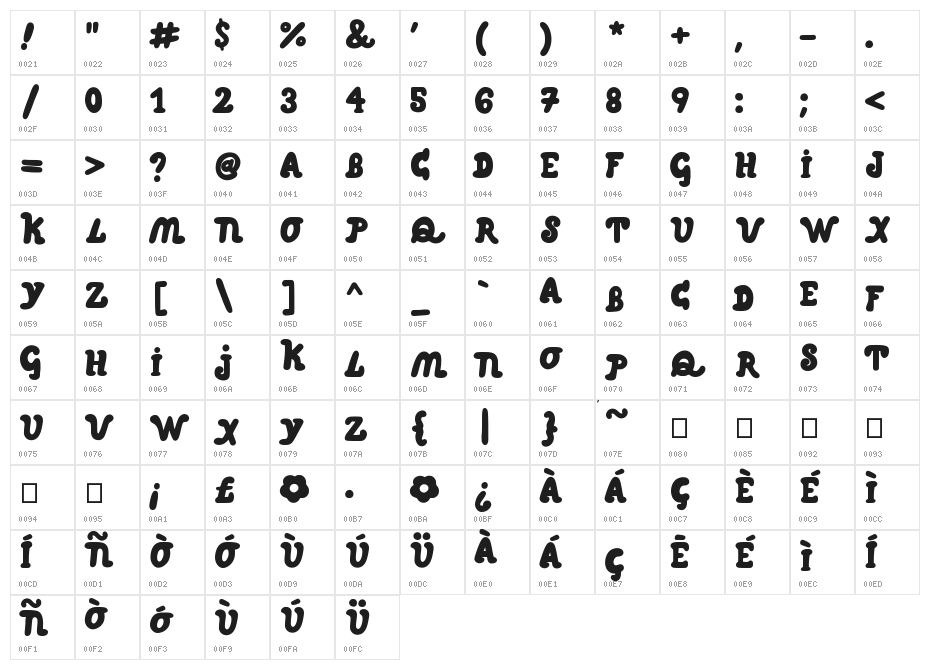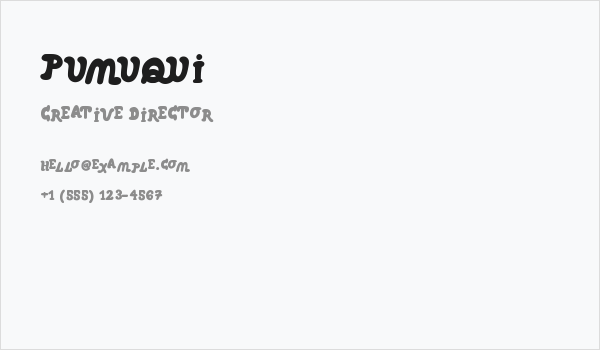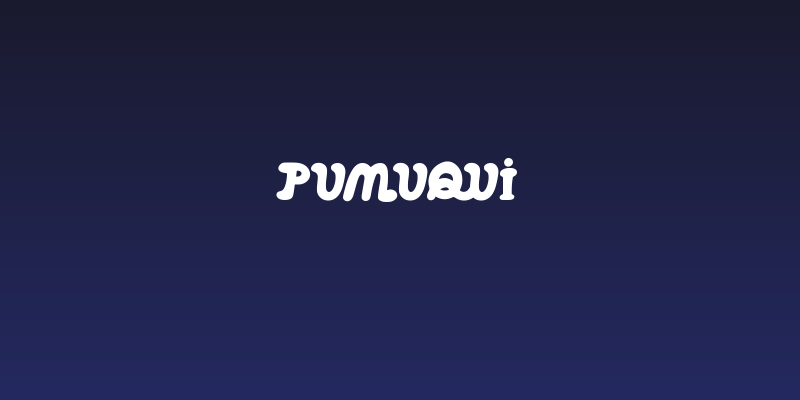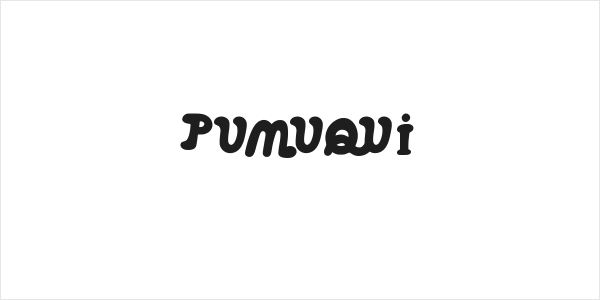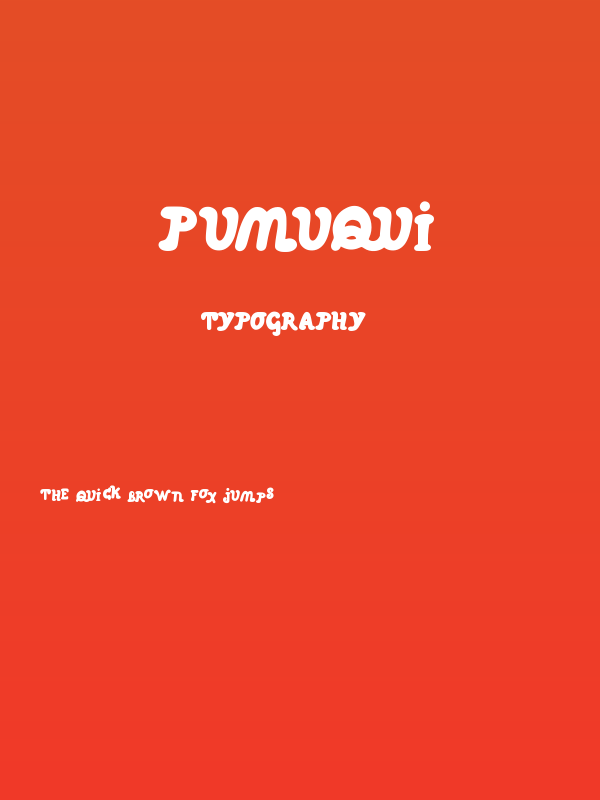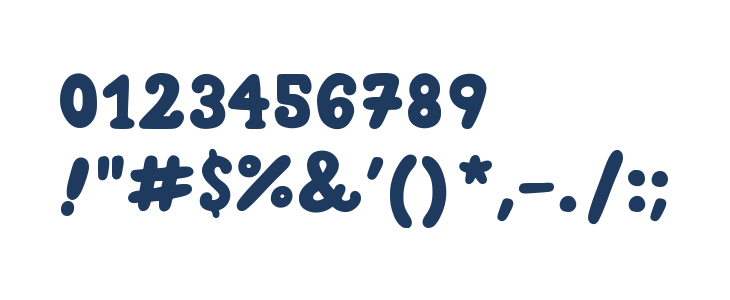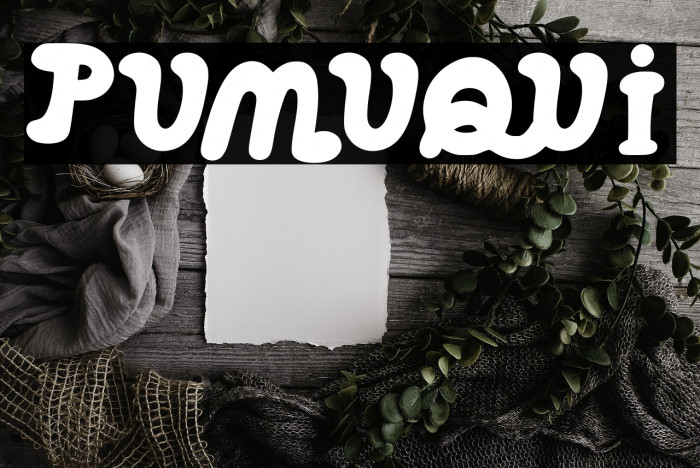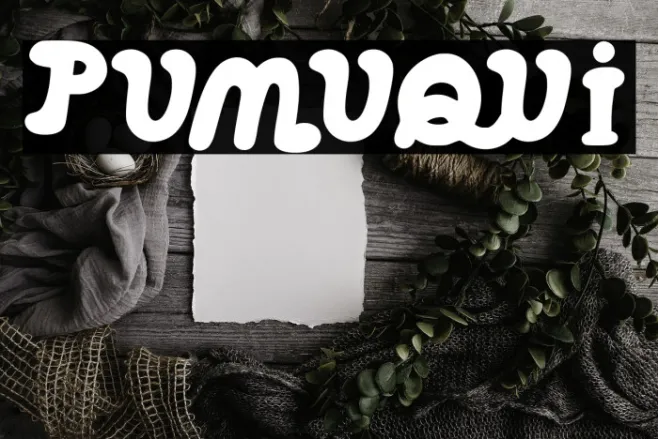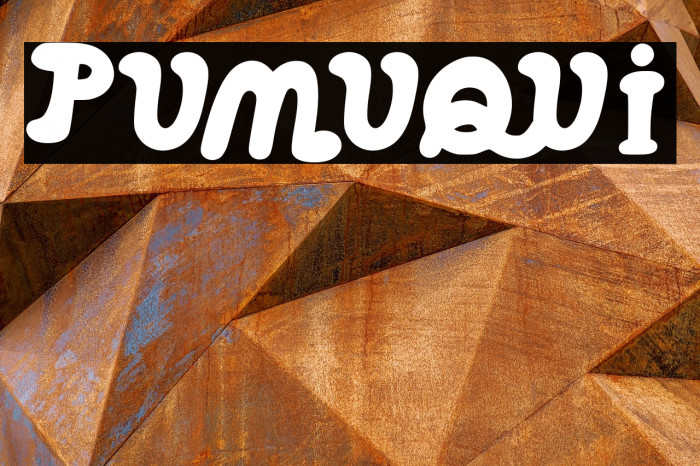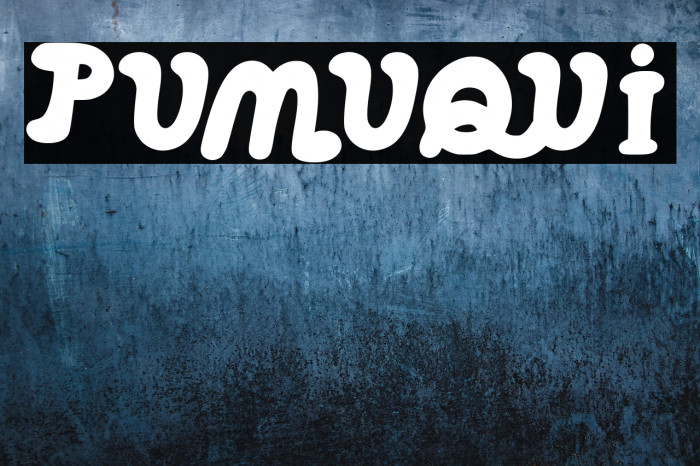
Pumuqui Font
Pumuqui Description
This playful and bold font features a whimsical, rounded style with exaggerated curves and thick strokes. The letters are characterized by their bubbly appearance, giving off a fun and informal vibe. The uppercase and lowercase letters maintain a consistent style, with the lowercase letters slightly smaller but equally bold. Numbers and special characters follow the same playful design, making the font cohesive throughout. The font's unique style is reminiscent of hand-drawn lettering, adding a personal touch to any design.
| Proposed Projects | Ideal for children's books, playful branding, party invitations, and any project requiring a fun and informal touch. |